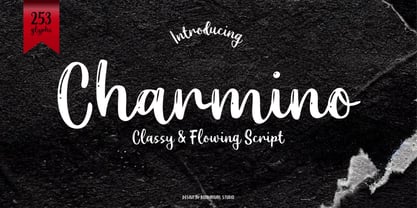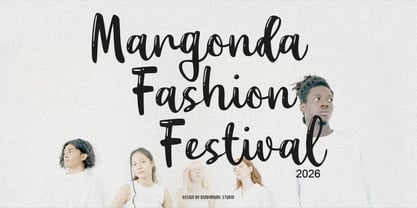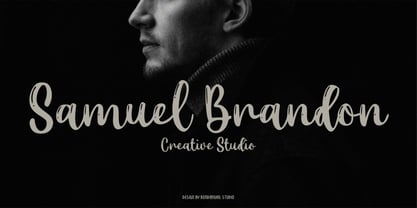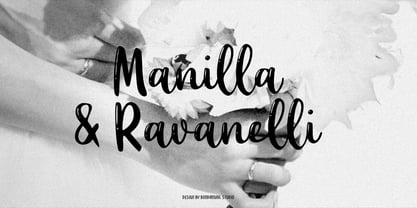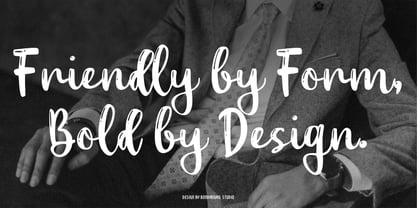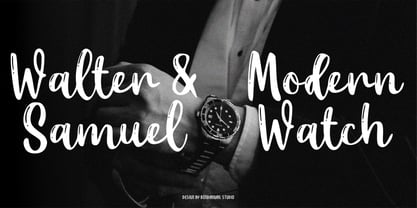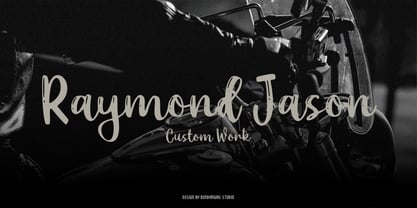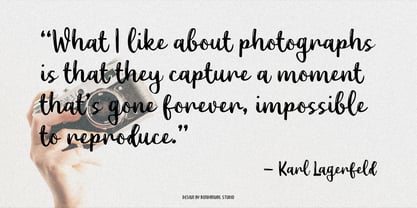
Charmino
by BondanGail
The Charmino Font Family was designed by Wahyu Eka Prasetya, Bondan Gail Saputro and published by BondanGail. Charmino contains 1 styles. More about this family
Charmino Script is an elegant flowing script typeface characterized by smooth, graceful letterforms that evoke a warm handwritten feel. The bold yet refined strokes create a polished appearance, blending modernity with personality. Designed to feel both stylish and approachable, Charmino Script delivers strong visual impact while maintaining readability. Whether you're creating high-end branding or soft feminine layouts, this script adds a timeless charm to every design. Charmino Script features: • 1 Script style • Uppercase, Lowercase, Numerals, Symbols, and Punctuation • Uppercase and Lowercase Alternates • Multilingual support • Compatible with PC & Mac • Accessible in Adobe Illustrator, Adobe Photoshop, Adobe InDesign, and Microsoft Word. Note: All photographs, pictures, and vectors used in the preview are not included and are intended for illustration purposes only.
Designers: Wahyu Eka Prasetya, Bondan Gail Saputro
Foundry: BondanGail